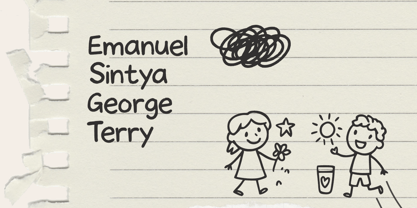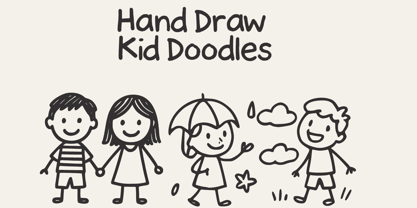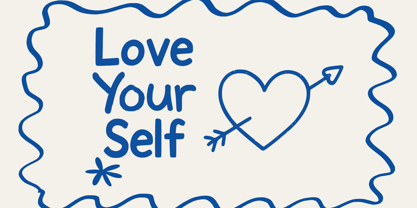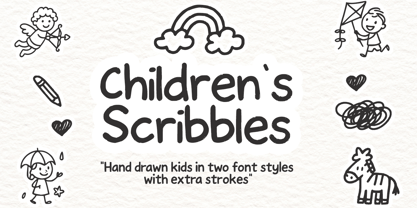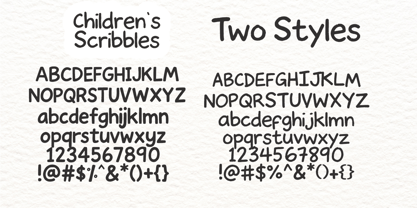
Childrens scribbles
by Cocodesign
The Childrens scribbles Font Family was designed by Muhammad Zaini and published by Cocodesign. Childrens scribbles contains 3 styles and family package options. More about this family
Children’s Scribbles – Fun Kids Doodle Font is a whimsical handwritten typeface that captures the essence of playful childhood through its natural scribbles and charming doodle illustrations. Each character is crafted with loose strokes and rounded shapes, resulting in a friendly, spontaneous, and child-like aesthetic. This font comes with a delightful assortment of doodle elements, including kids, animals, clouds, stars, and other playful motifs, making it ideal for enhancing vibrant classroom-themed layouts and imaginative children's projects. Perfect for educational printables, worksheets, school materials, posters, and kid-friendly visual designs.✨ Great for school resources, classroom projects, children’s books, learning worksheets, educational printables, kindergarten materials, nursery graphics, posters & flashcards, and kids' activity designs.